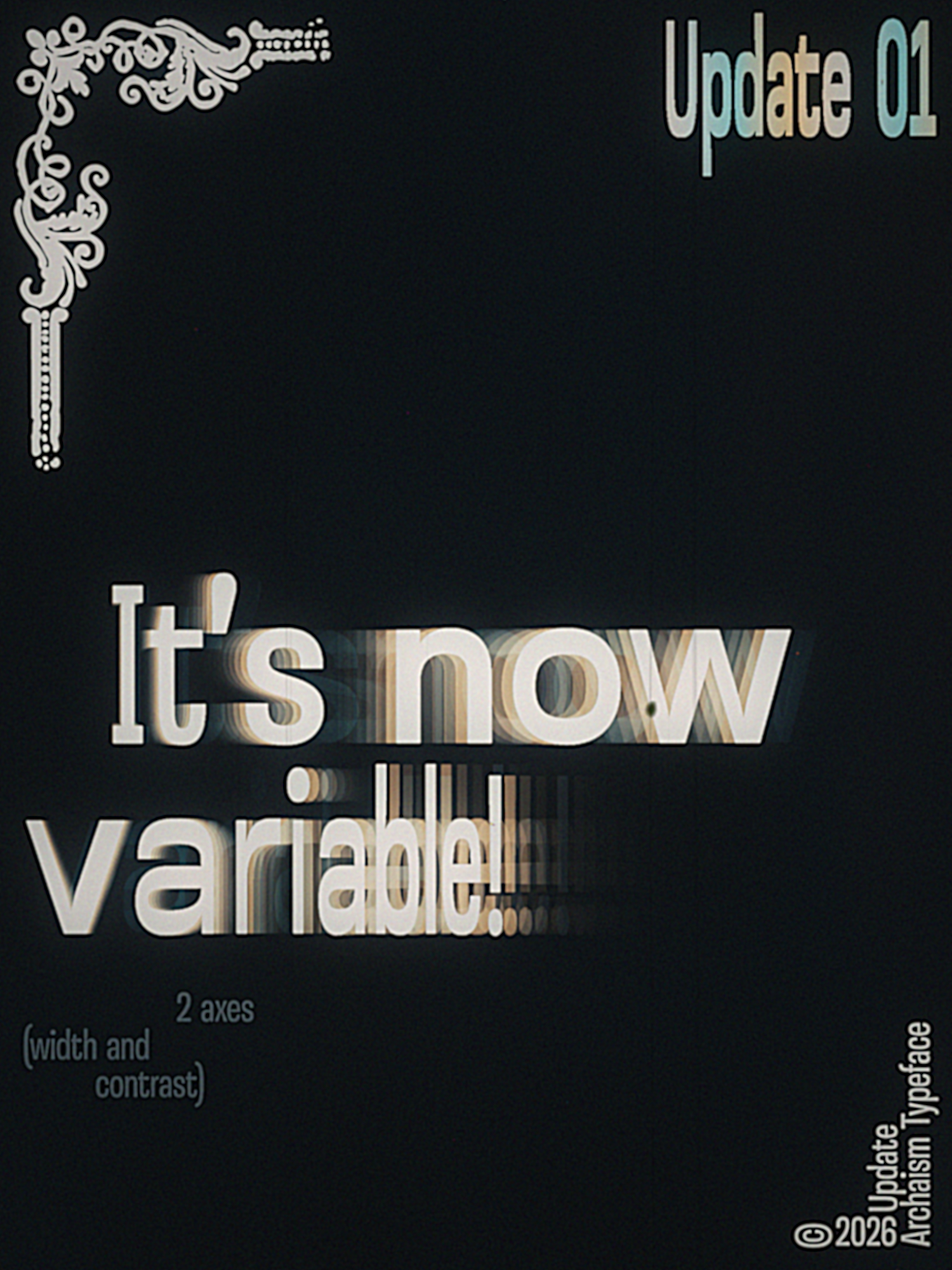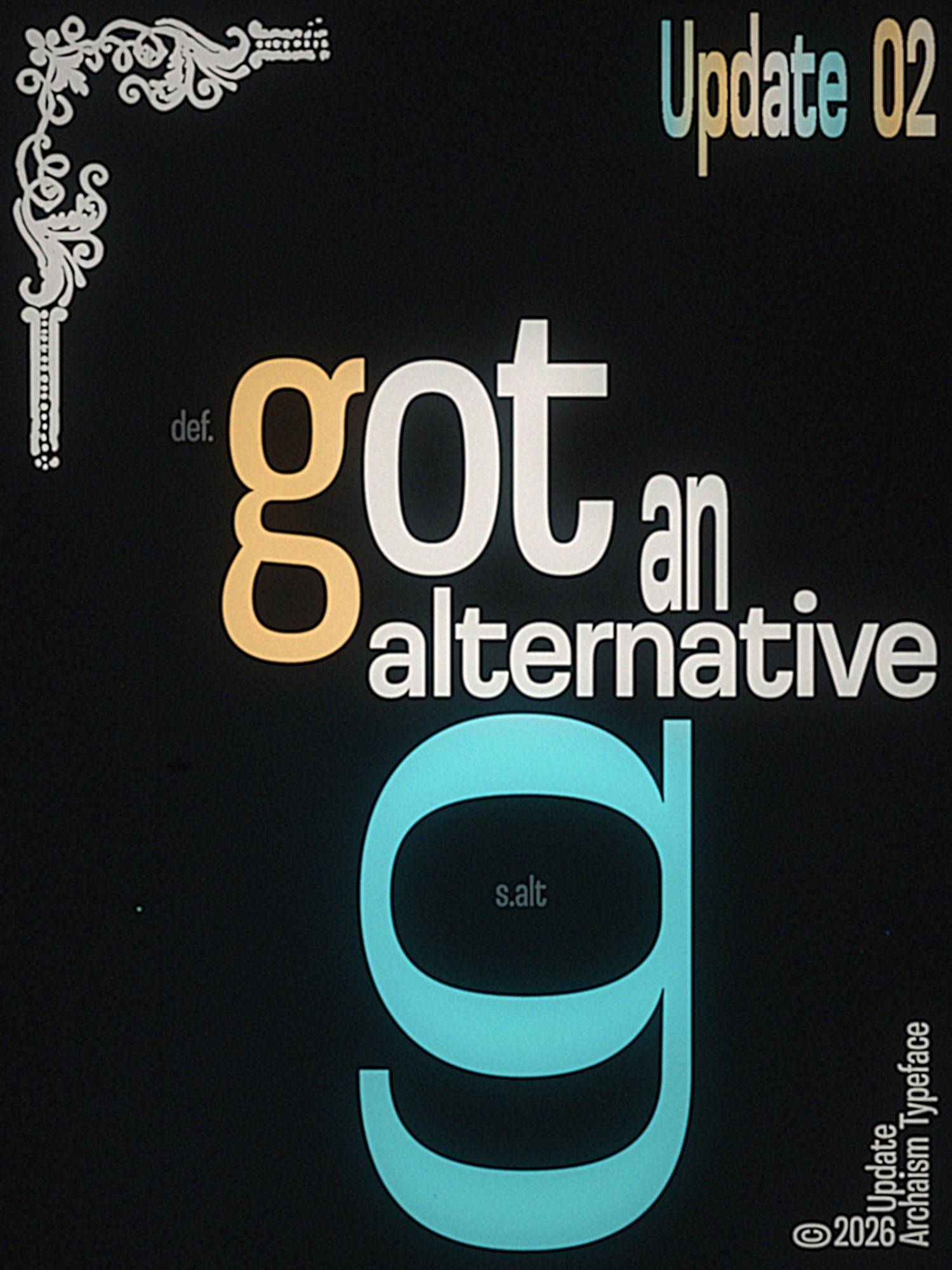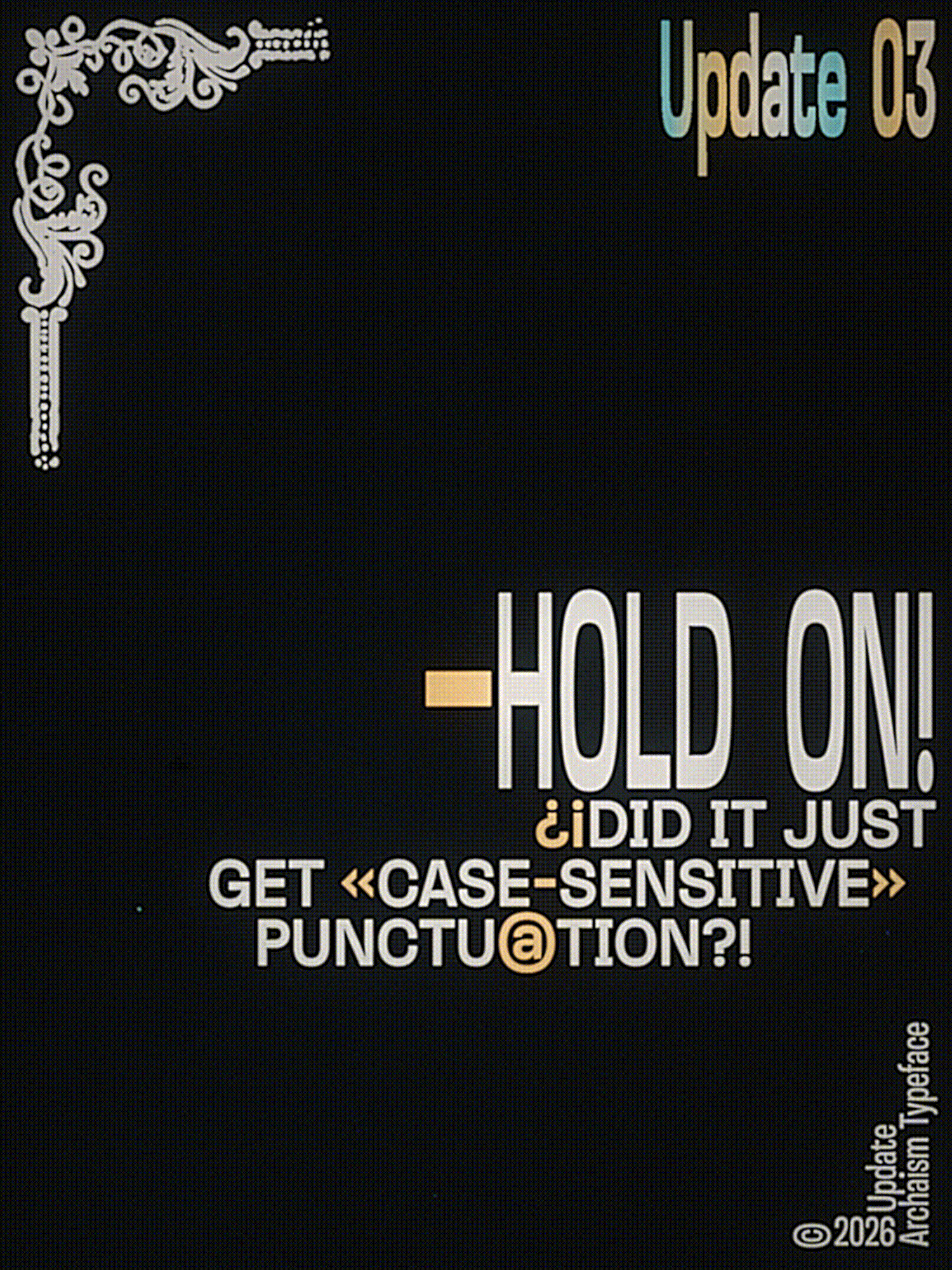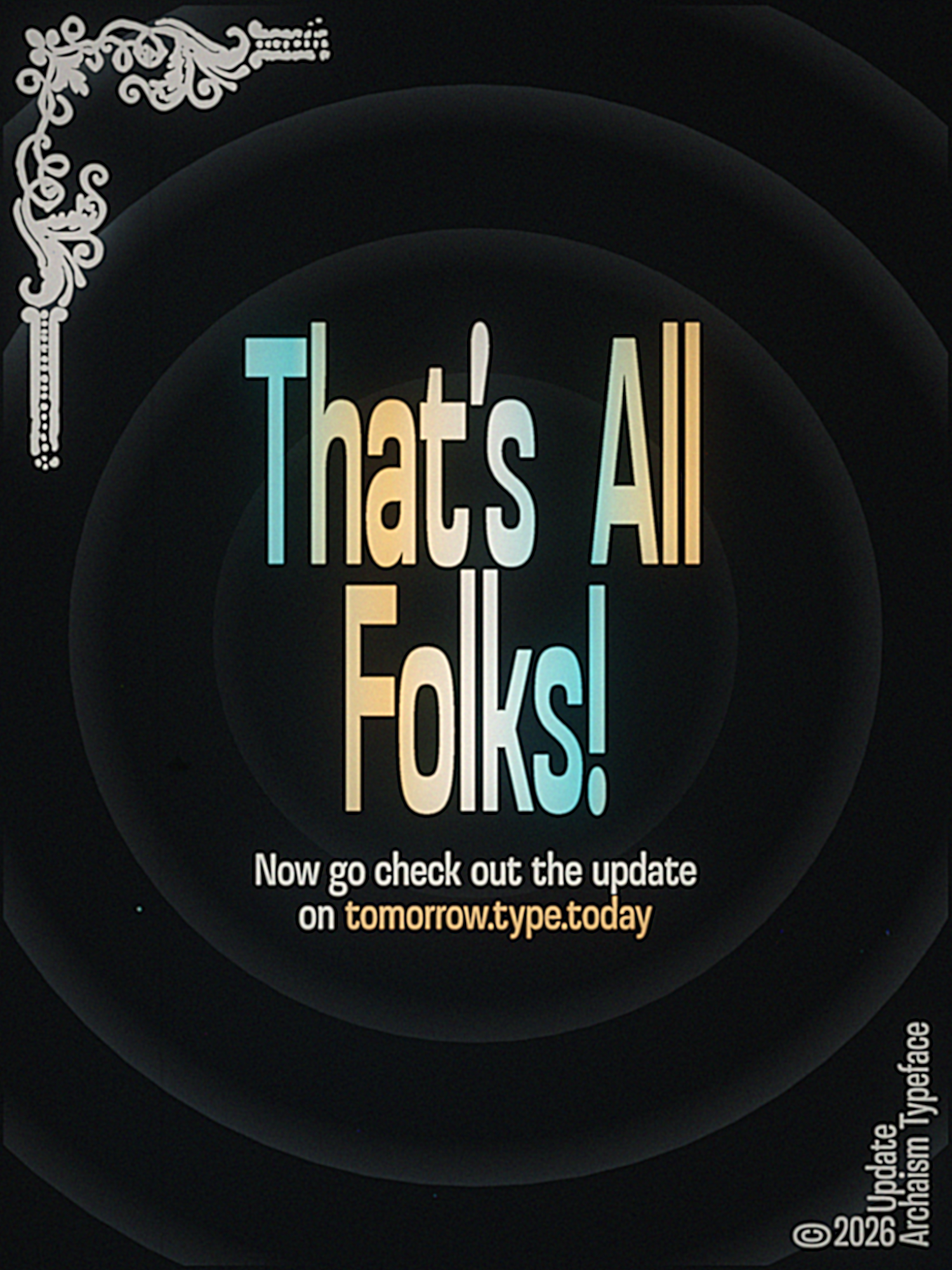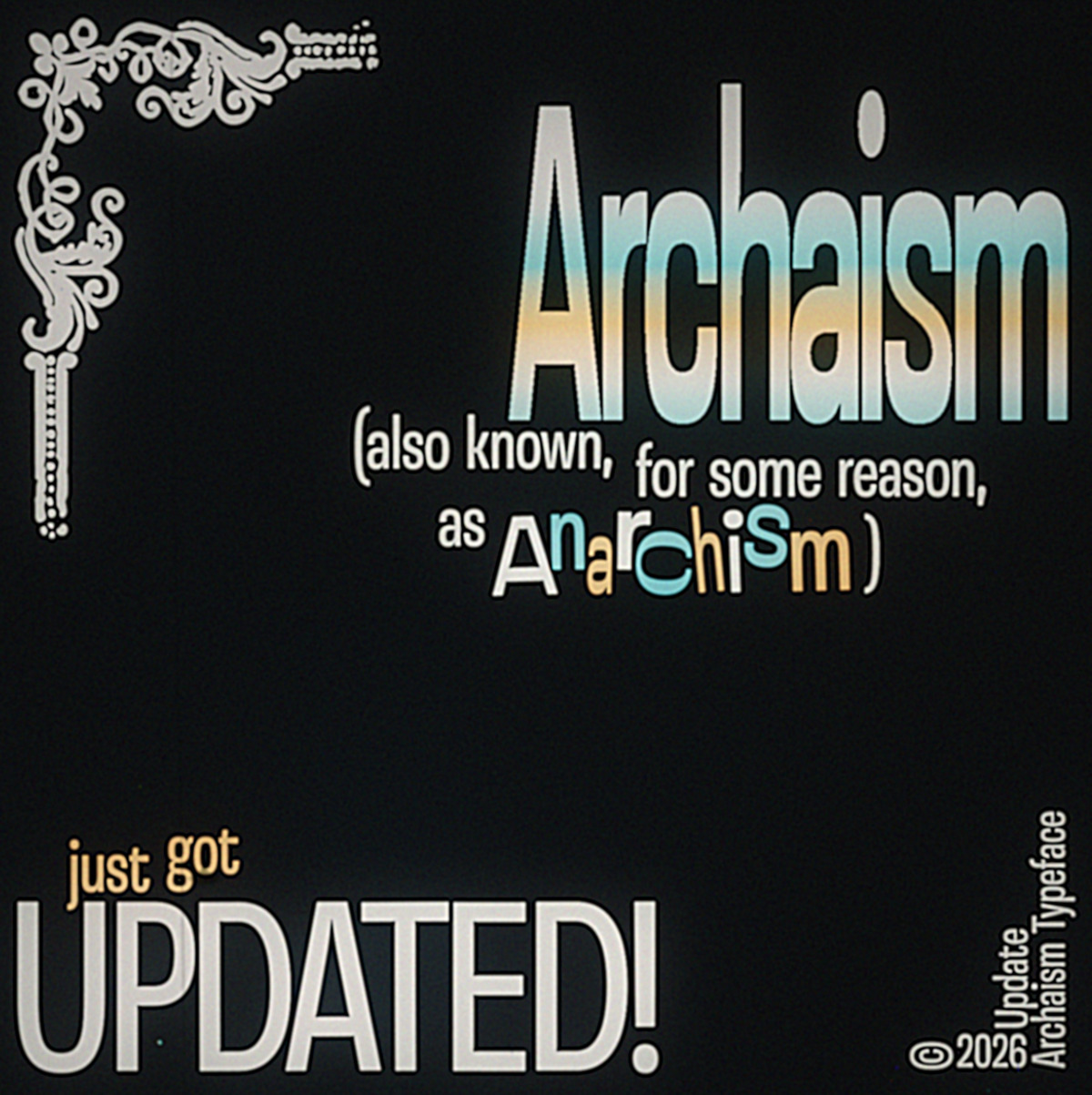
The Archaism collection, which ‘restores’ distorted typefaces found on printed informational announcements or adverts, has been updated.
In addition to its 15 static styles, it now includes a variable font with two axes — width and contrast. New alternate forms of the g and case-sensitive punctuation have also been added to the character set.